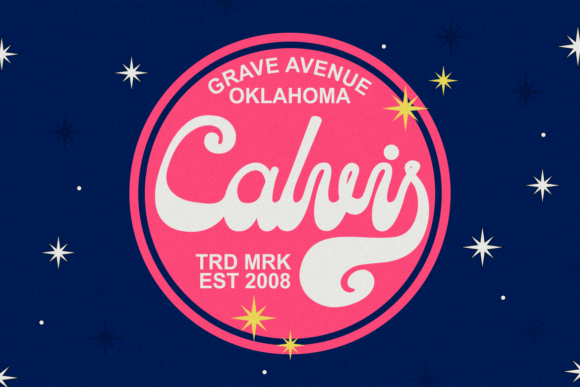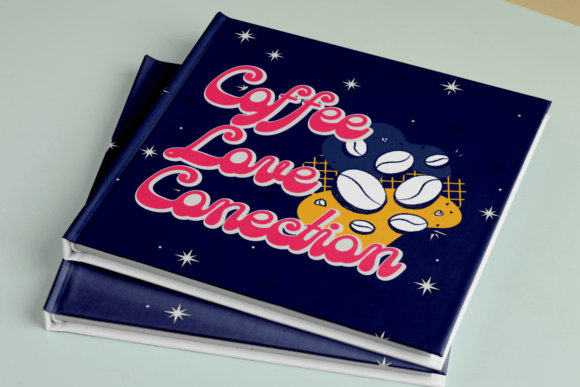
Chunk Five Font
Chunk Five – Retro Script Font is a captivating display script typeface that effortlessly transports you back to the retro and vintage eras. Its distinctive feature lies in its bold and groovy bottom-heavy characters that make a strong impact on any design.
This font offers an extensive set of alternative characters with an abundance of unique shapes and swashes to choose from, allowing for endless creative possibilities.
Ideal for logos, packaging, invitations, greeting cards, posters, magazines, titles, business branding, and all projects seeking a retro or vintage theme, Chunk Five delivers a perfect dose of nostalgia and charm.
With its retro and vintage style, it brings a touch of the past into your designs, making it an excellent choice for conveying a sense of history and personality to your creative projects.